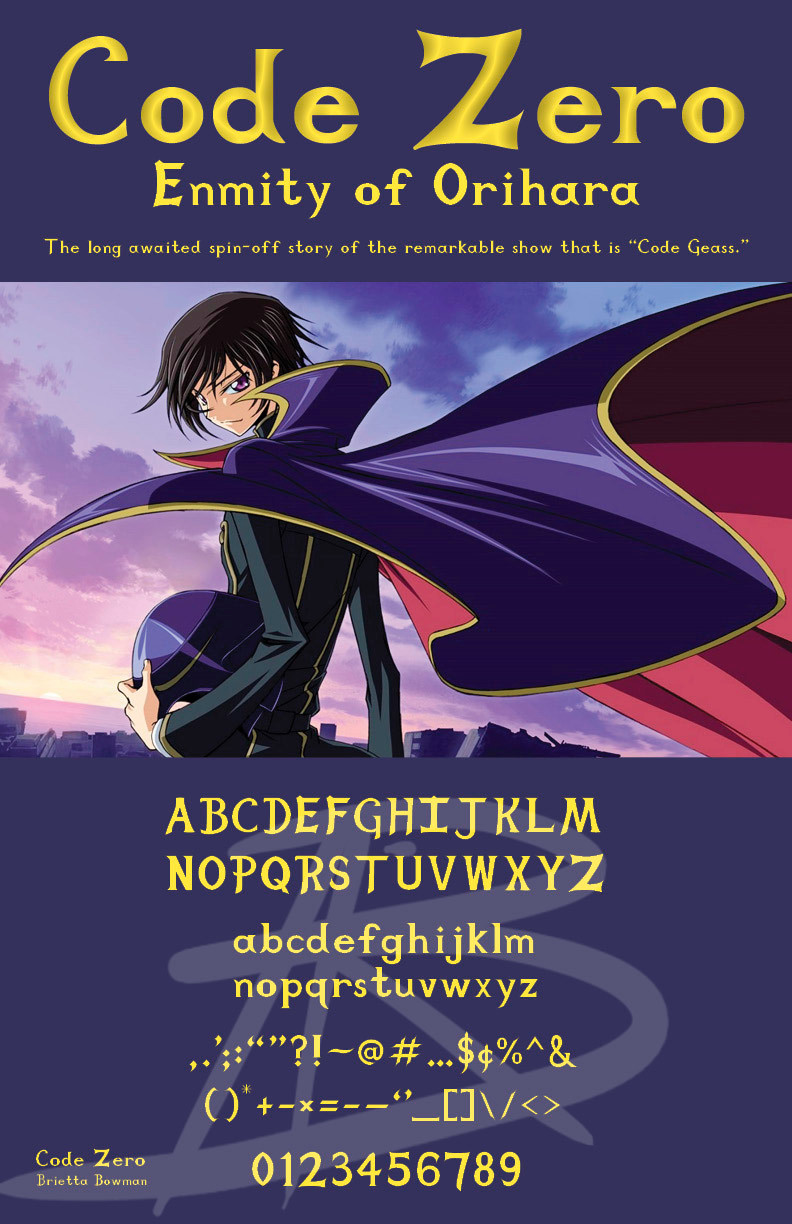
After working on this over the course of about 2 months, I have made my very first font!! This is the poster I made to showcase the font for my Typography class.I initially didn't intend on making it after an anime logo; however, I had to have 3 "possible" fonts where one was taken from a product (Or other logo in this case), and I just happened to choose Code Geass. It looked really good and figuring out what the letters would look like came rather easy, so I chose it for the finished product.
I just got the font, and this poster, graded today and I got an A! ^_^ I hope you like it! I put a loooooot of work into this. hahaha
Also, I hope you Durarara fans enjoy my little nod to the show. Besides, I'd actually love to see Lelouch and Izaya in an anime together. XD